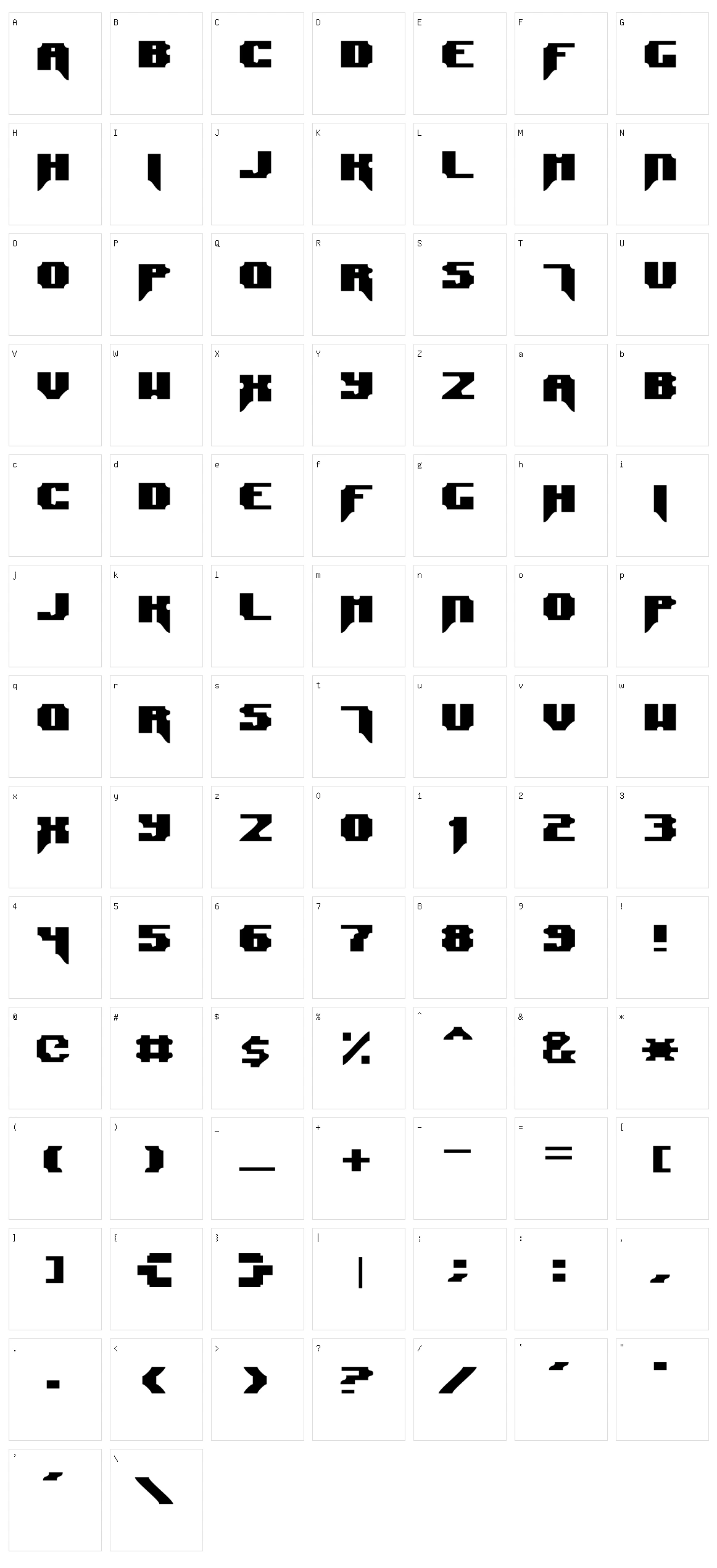
Syntax Error Syntax Terror
Designed by: Freaky Fonts
"Syntax Error" & "Syntax Terror" Truetype Fonts
Note:
"Syntax Error" : the original hardcore straight edge look,
"Syntax Terror": for all the soft-boiled sissys out there... ;)
recommended settings for "Syntax Error":
Paintshop use: Size 8 (& multiplier) - antialising turned off
Photoshop use: Size 10 (& multiplier) - antialising turned off